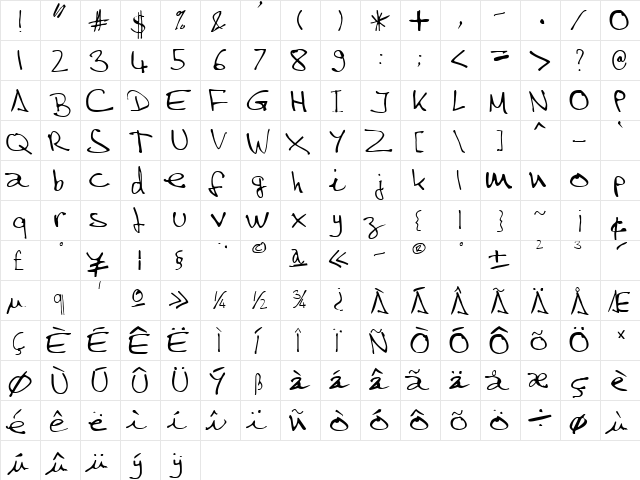
Steve Hand
| Style | Hand |
Design Context for Steve Typeface
Steve flows with the natural rhythm of handwritten lettering, making it ideal for designs that call for warmth and personal expression.
Font Pairing: Combine Steve with a simple geometric sans for maximum contrast — the tension between flowing curves and clean structure is a classic typographic pairing.
Pro Tip: Use Steve for short runs of text — names, titles, or taglines. Extended body copy in script faces tires the eye quickly.